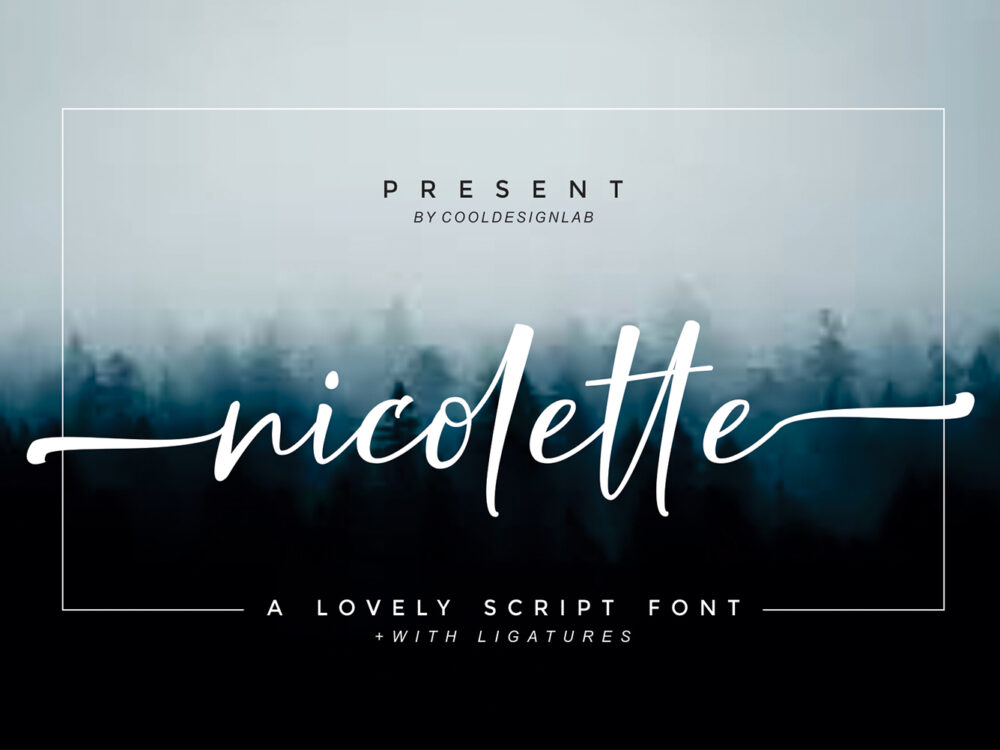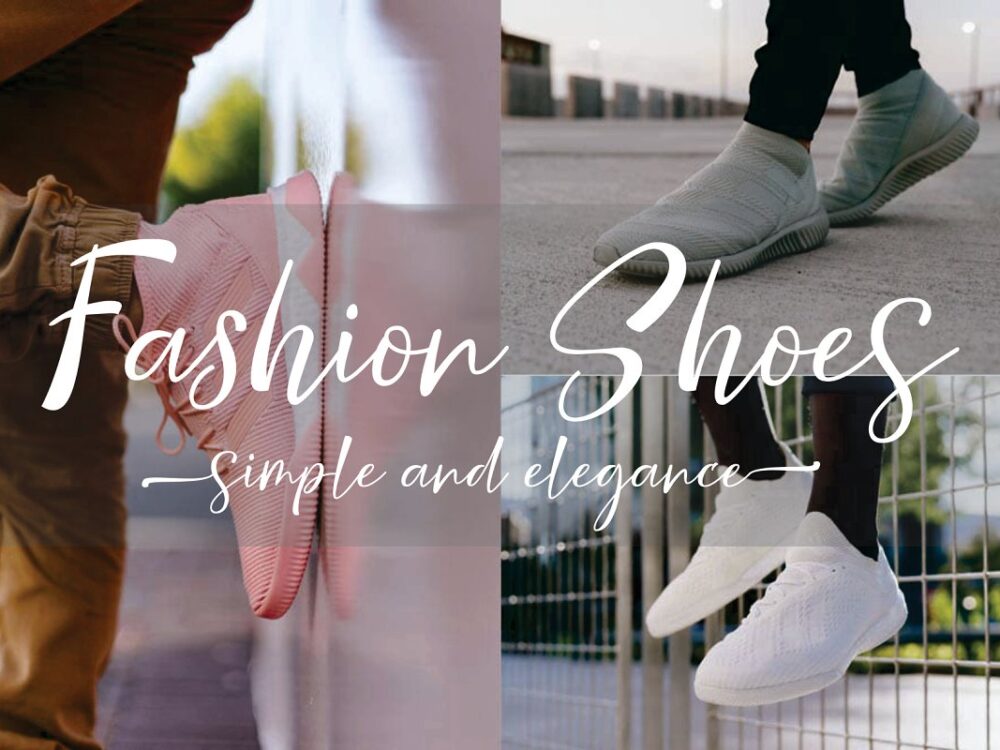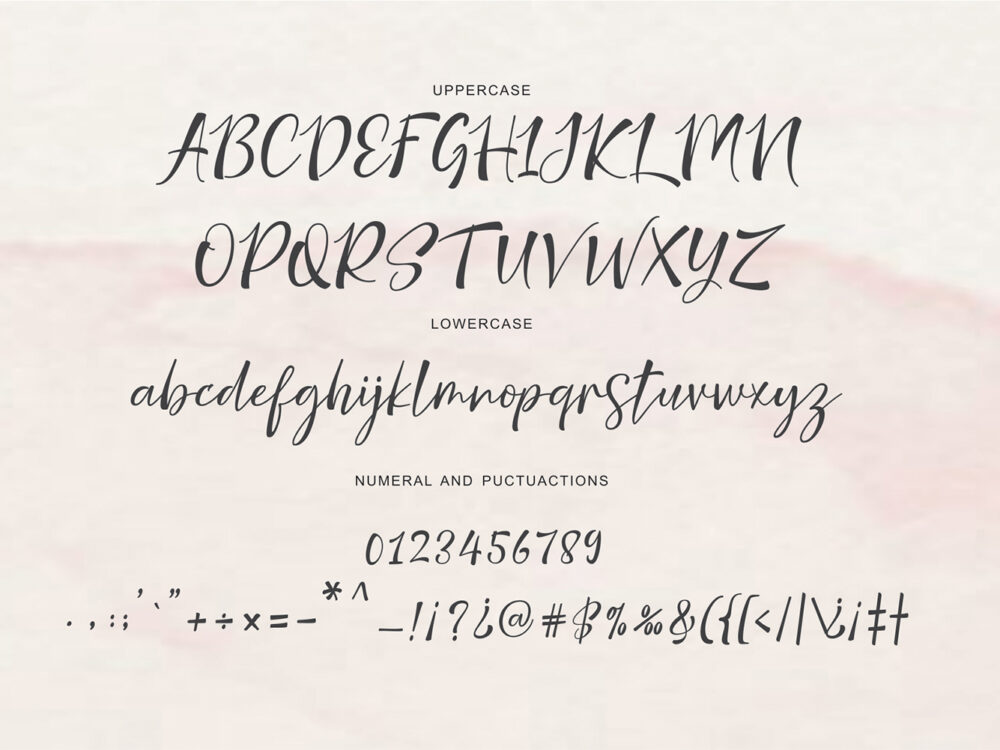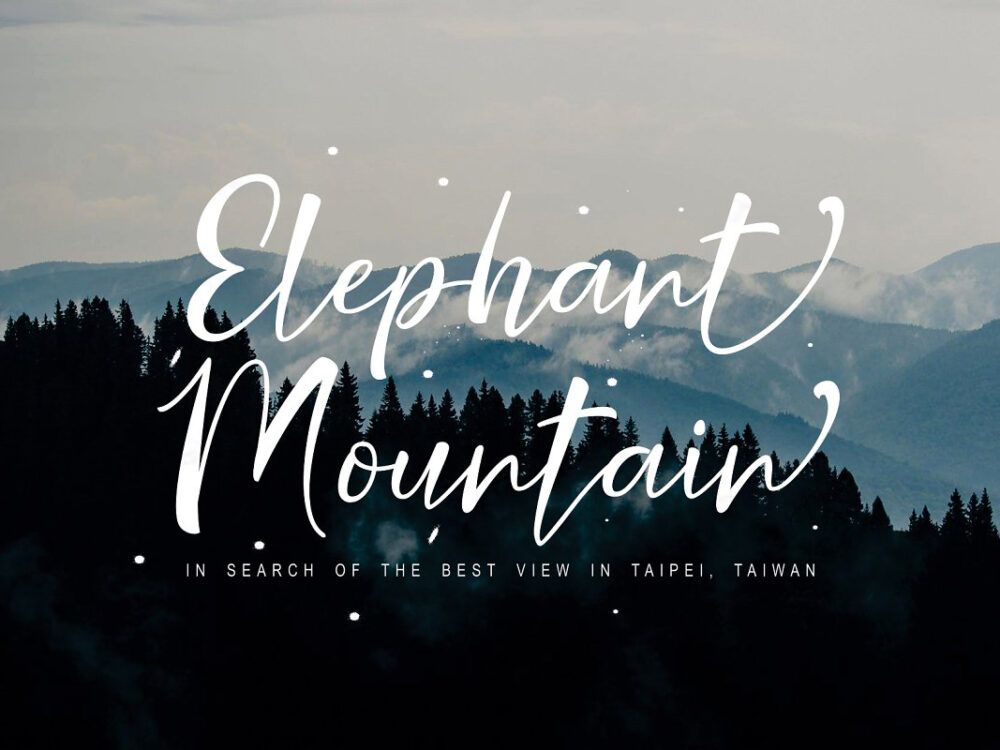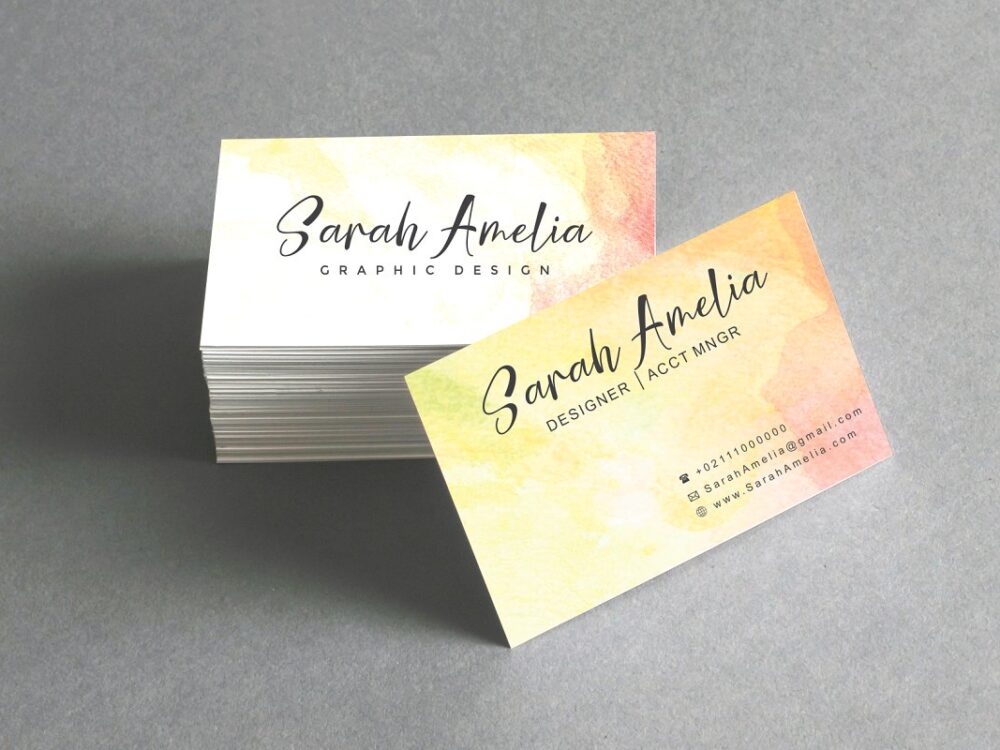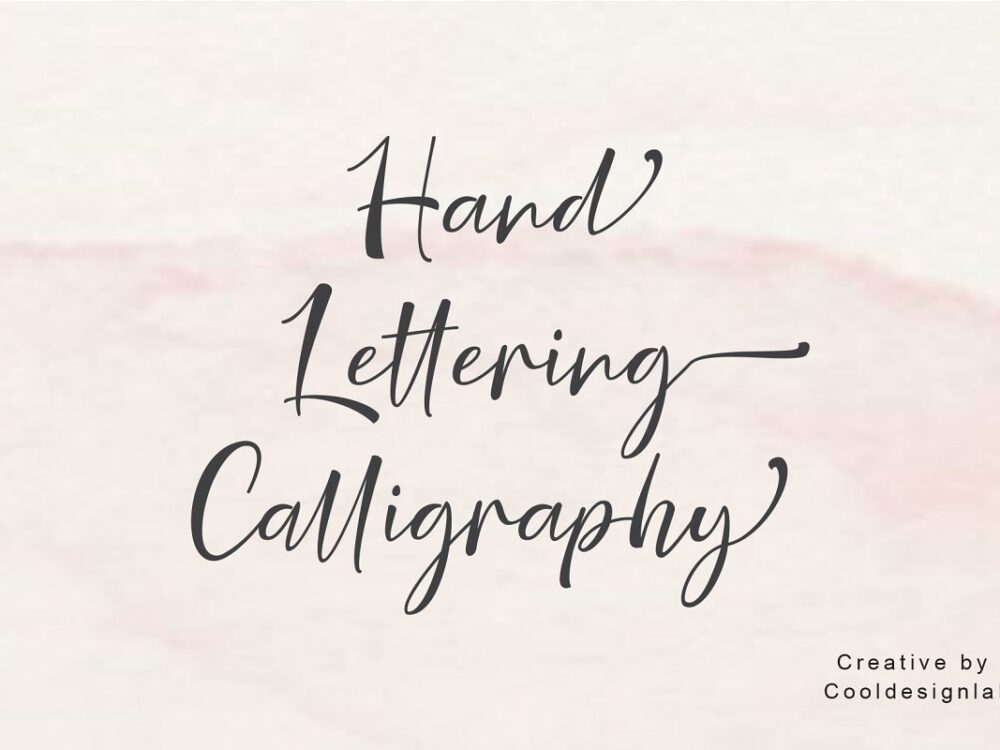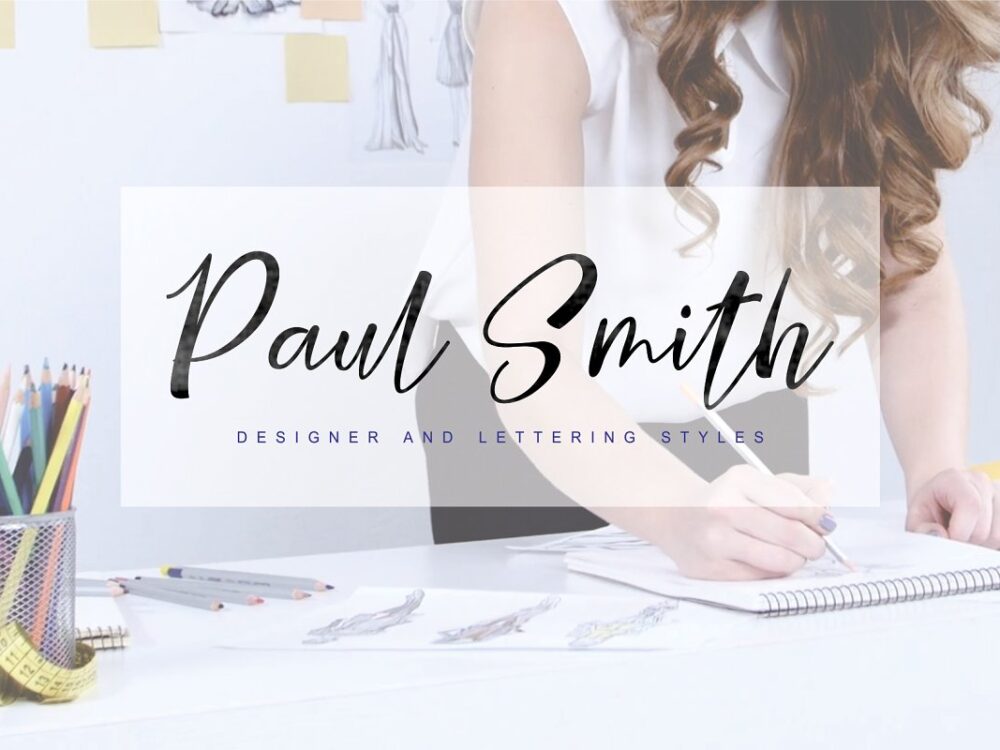
Nicolette Script Free Font
Nicolette Script Free Font is a beautiful modern handwritten typeface with elegant lines. This font is perfect for branding, logos, greetings, postcards, and many other design projects. If you wish to access more features and use it for commercial work, go get the full version as well.